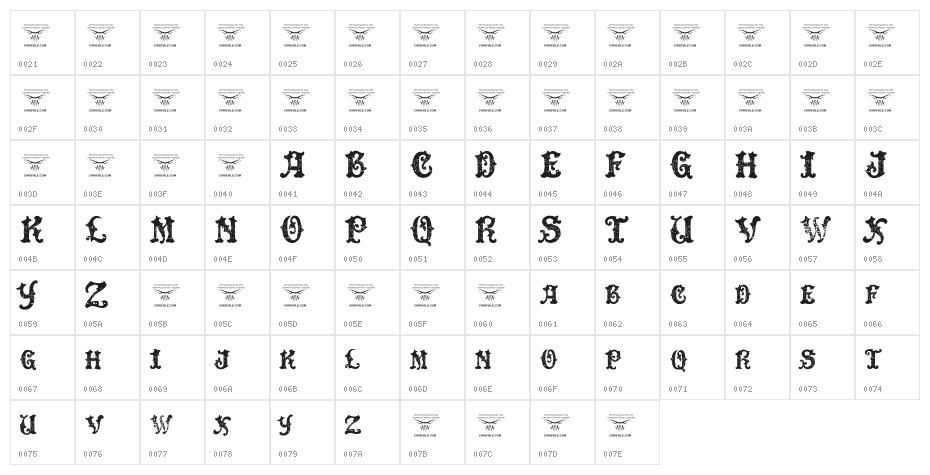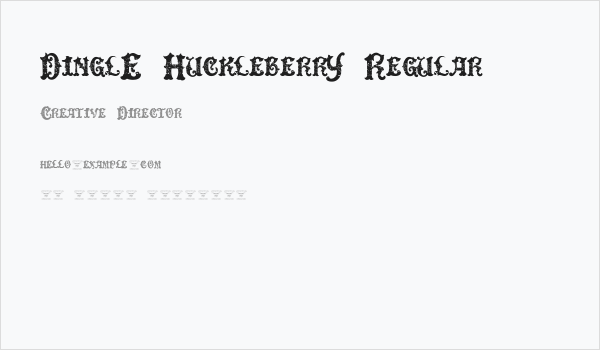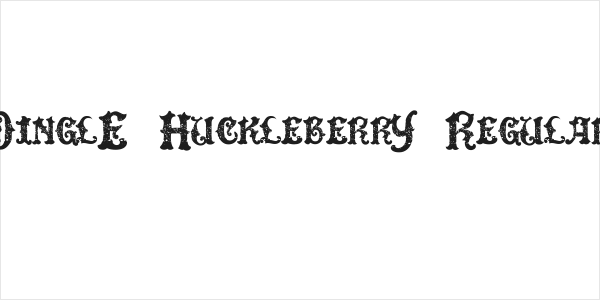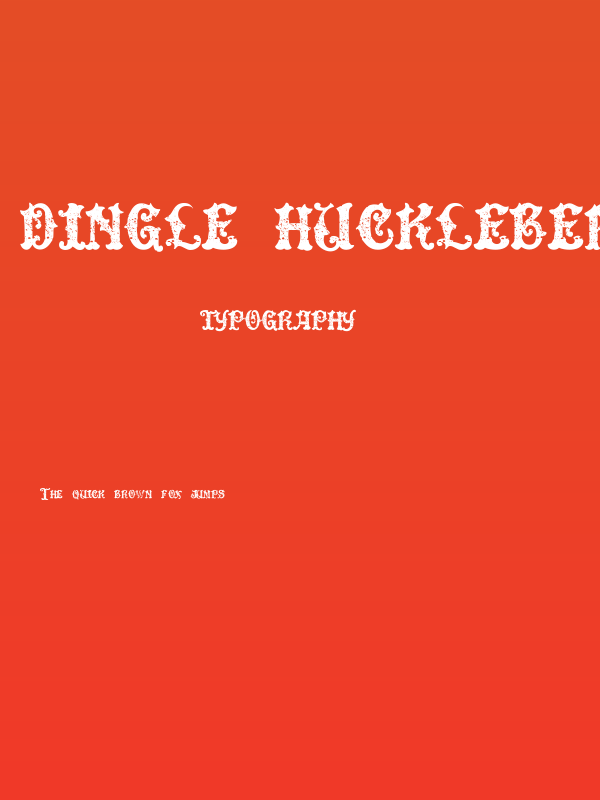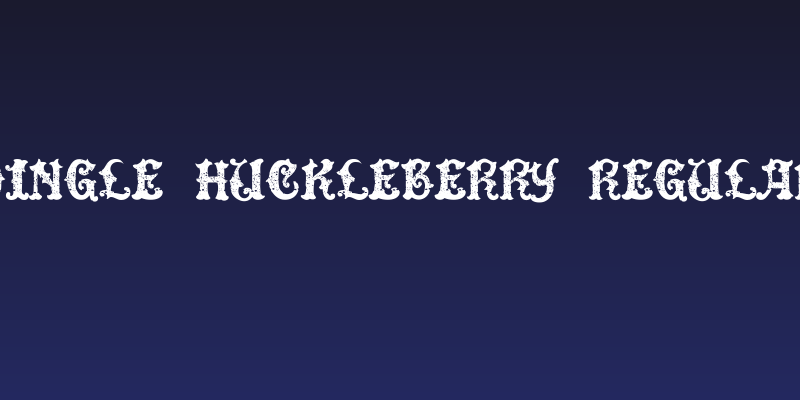
DinglE HuckleberrY Regular Font
DinglE HuckleberrY Regular Description
This font features a bold, decorative style with a distressed texture that gives it a vintage and playful appearance. The characters have ornate, swirling elements that add a whimsical touch, making it stand out for creative projects. Its unique design includes irregular edges and a speckled pattern, contributing to its rustic charm. The uppercase letters are particularly elaborate, with intricate detailing that enhances their visual impact. This font is ideal for projects that require a distinctive and eye-catching typeface, such as posters, logos, or themed event invitations.
| Overall Style | Vintage, Decorative |
| Proposed Projects | Ideal for posters, logos, themed event invitations, and creative branding projects. |